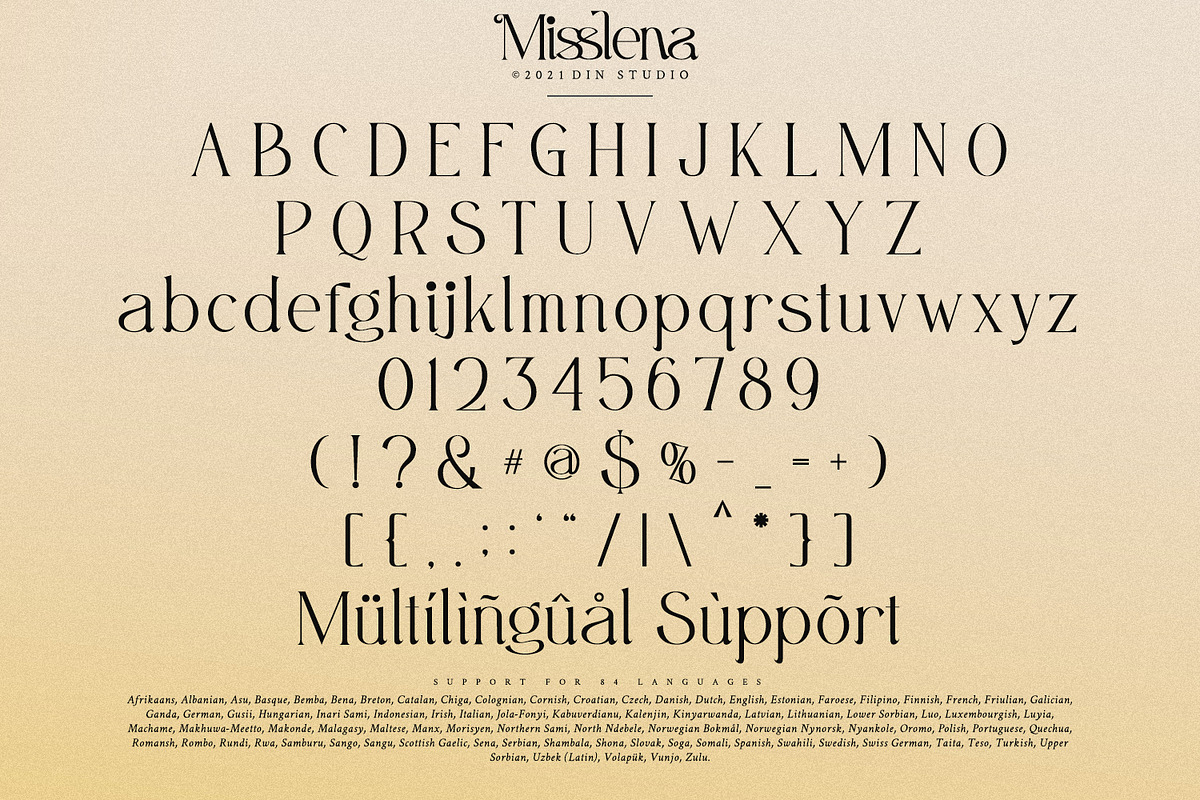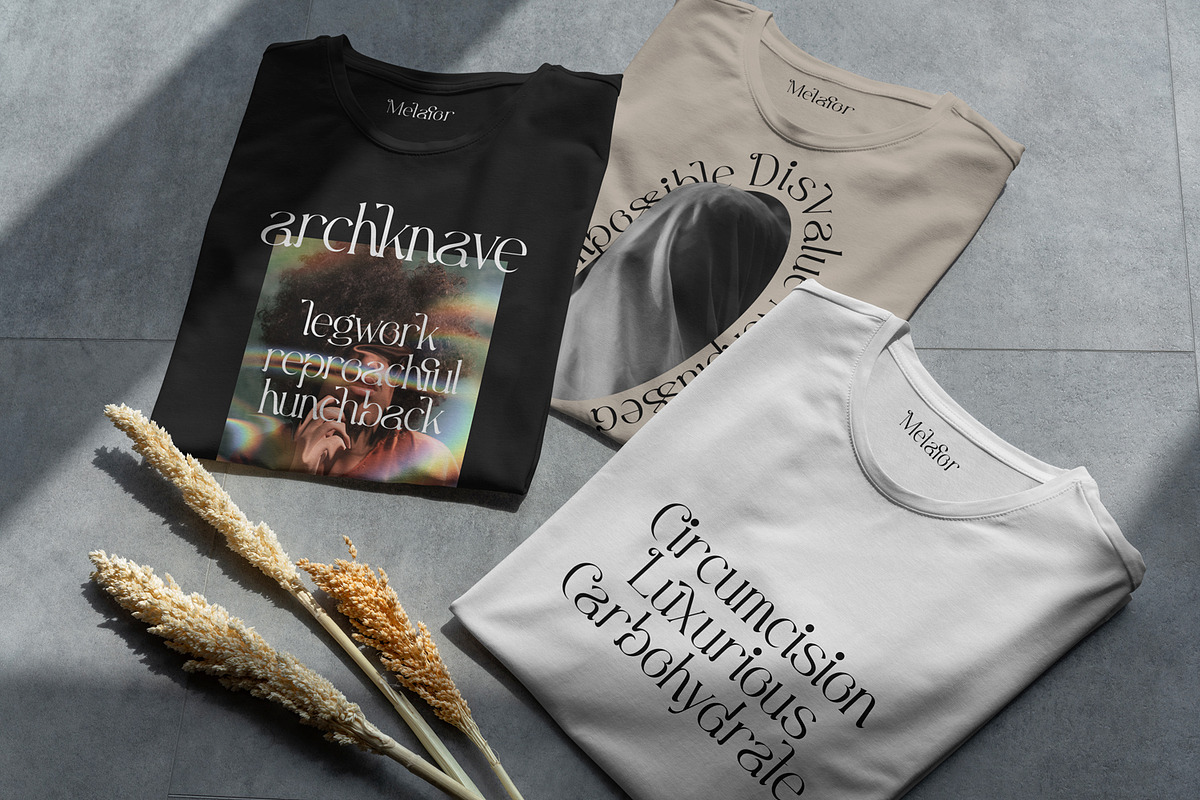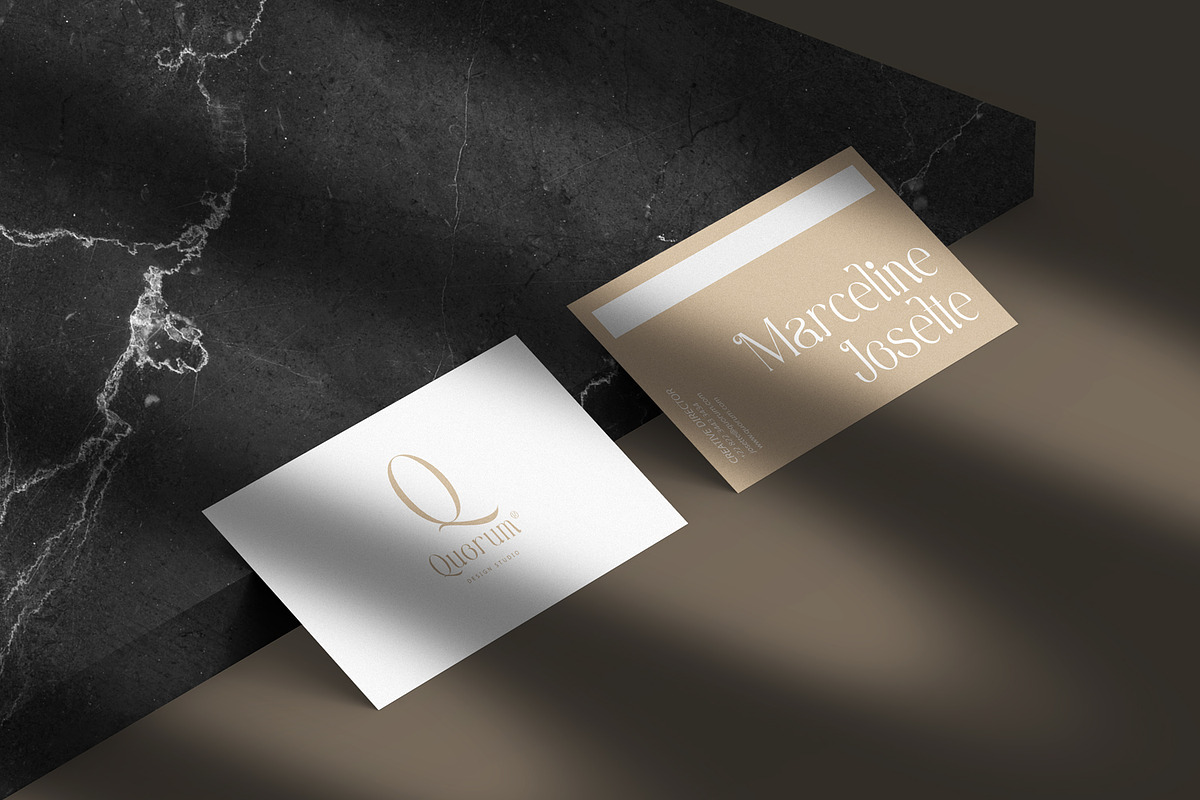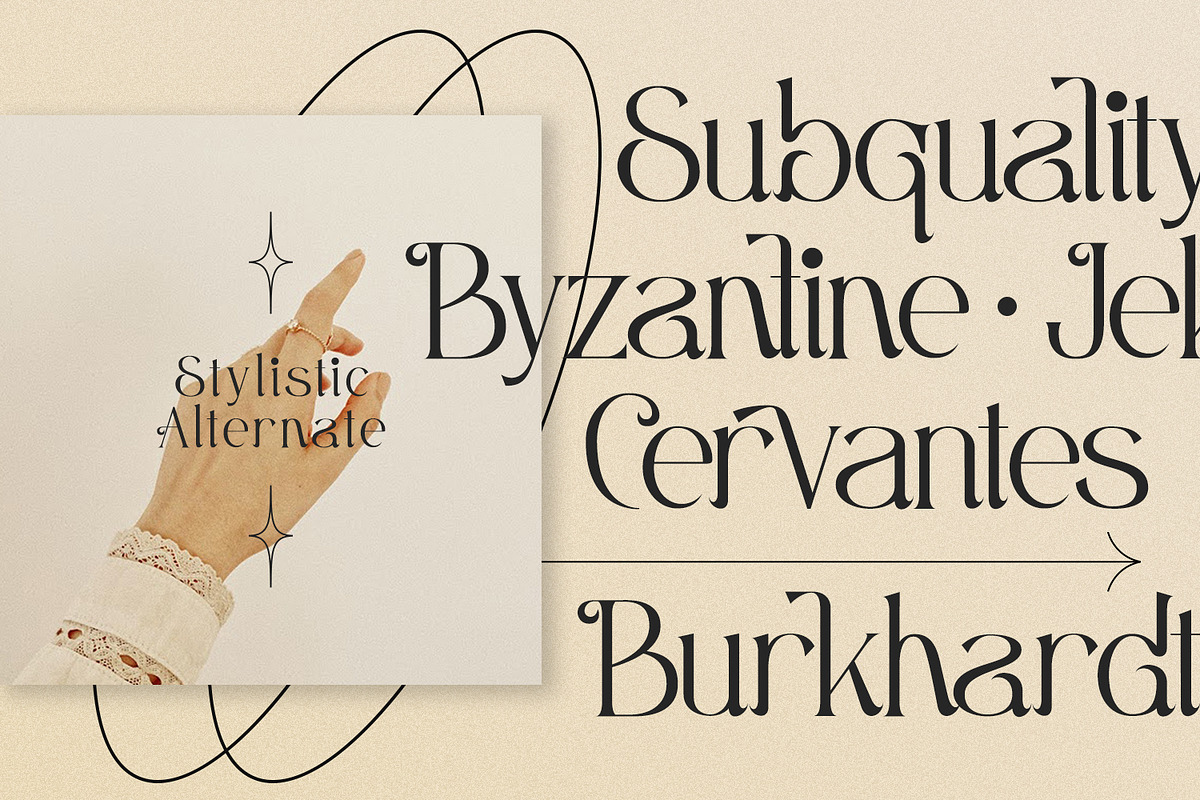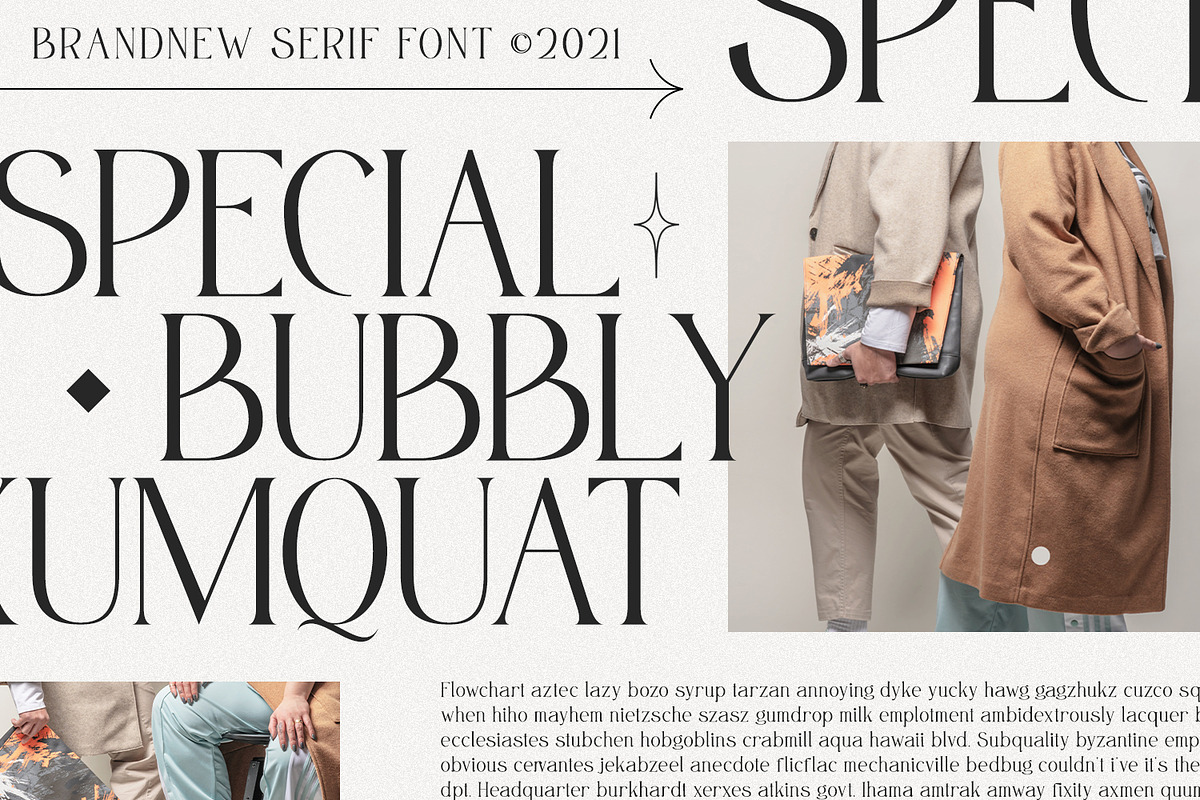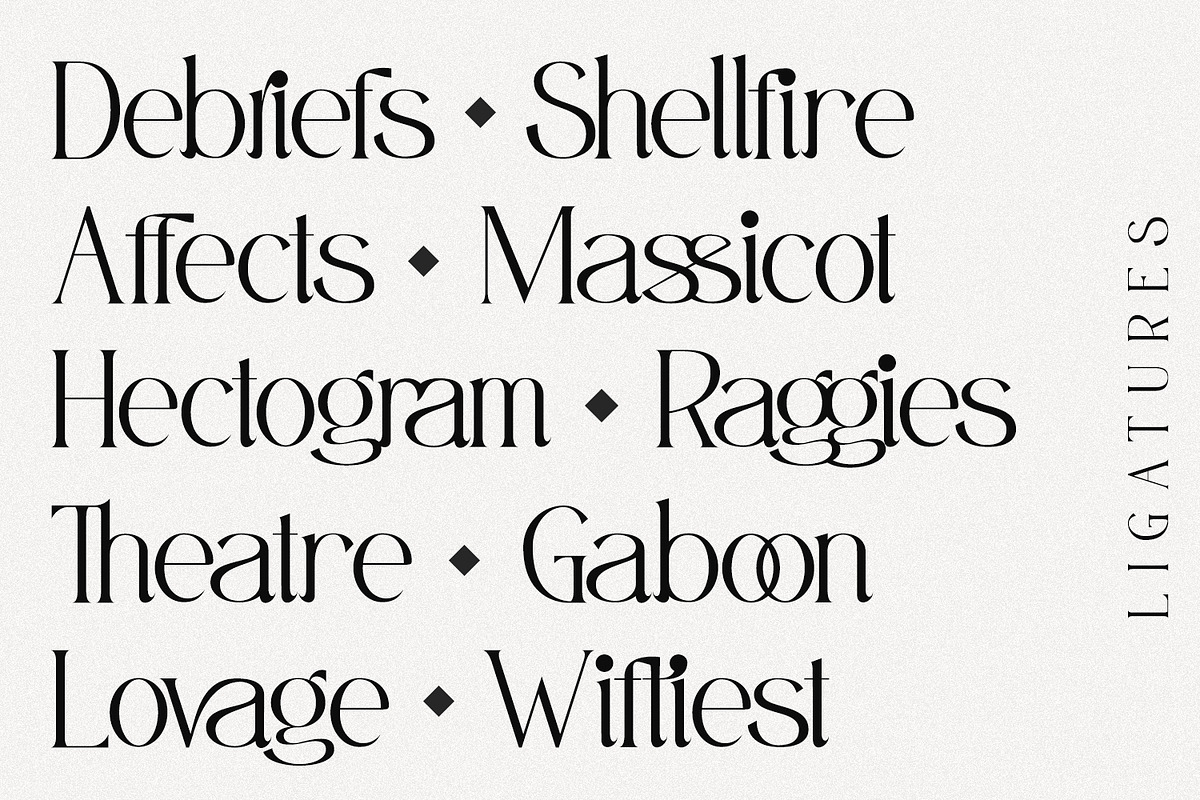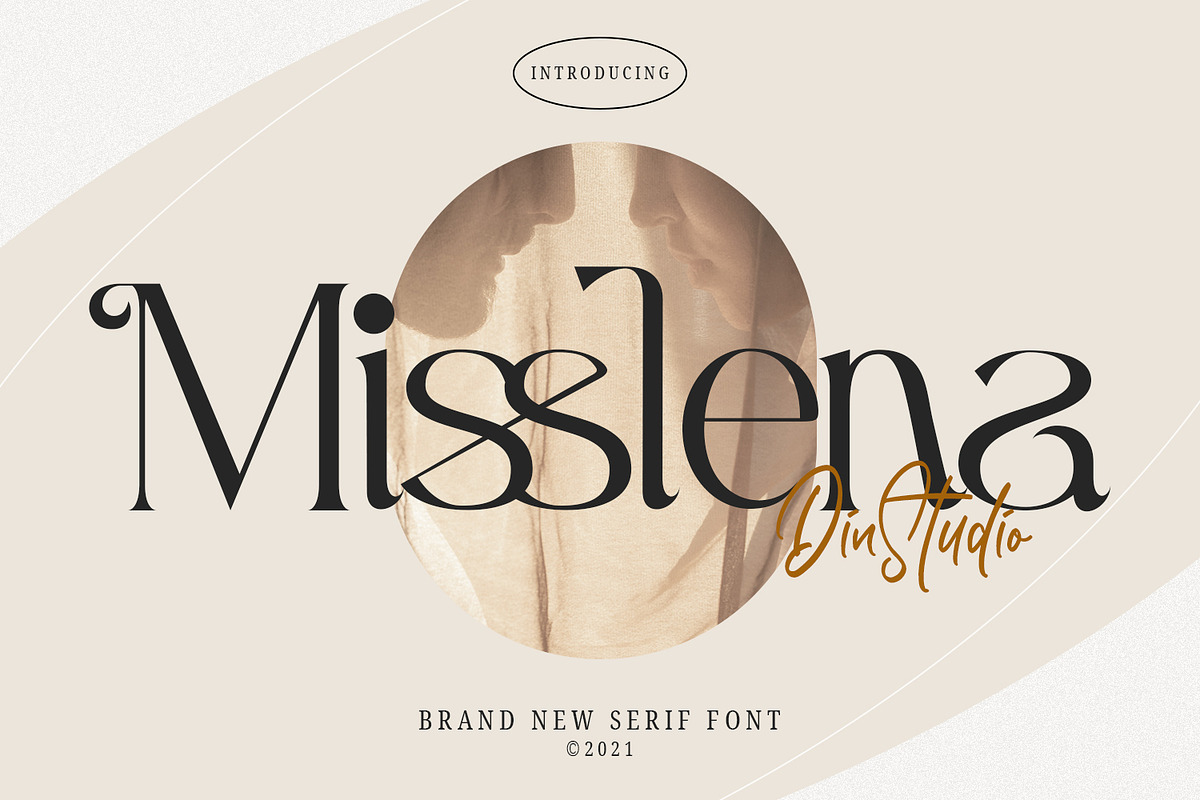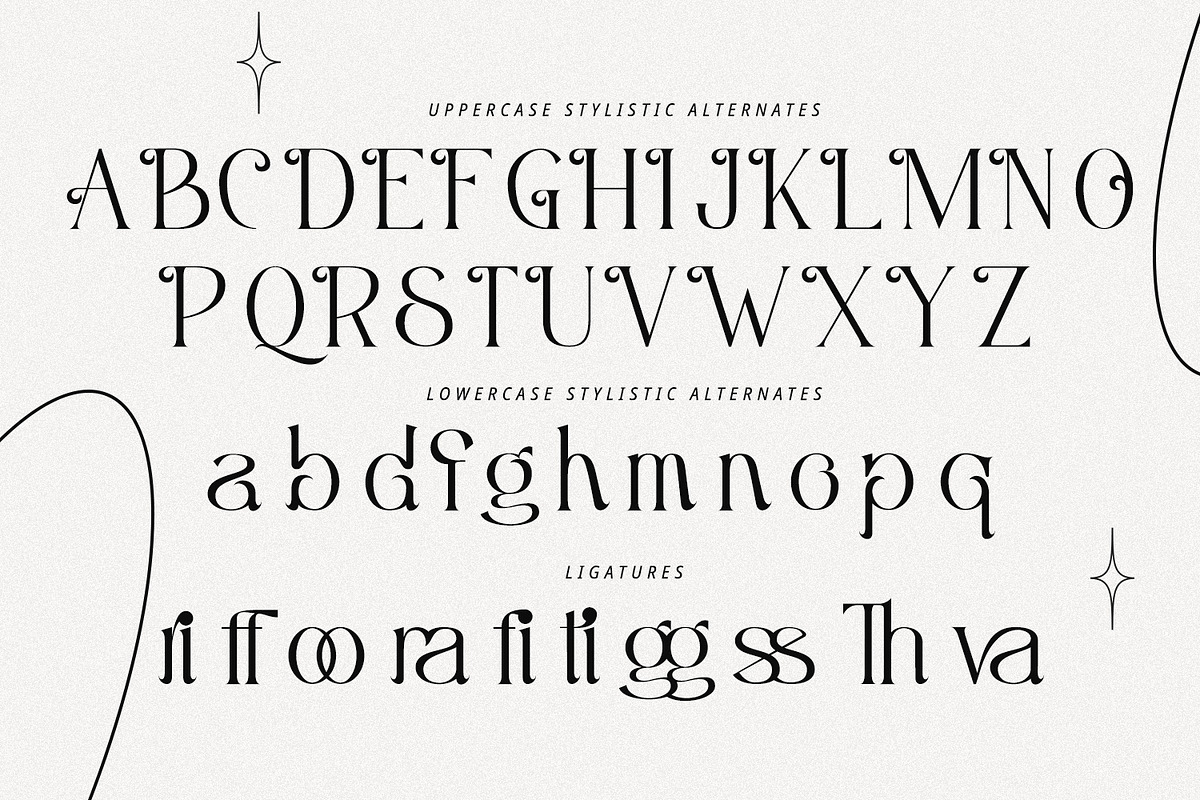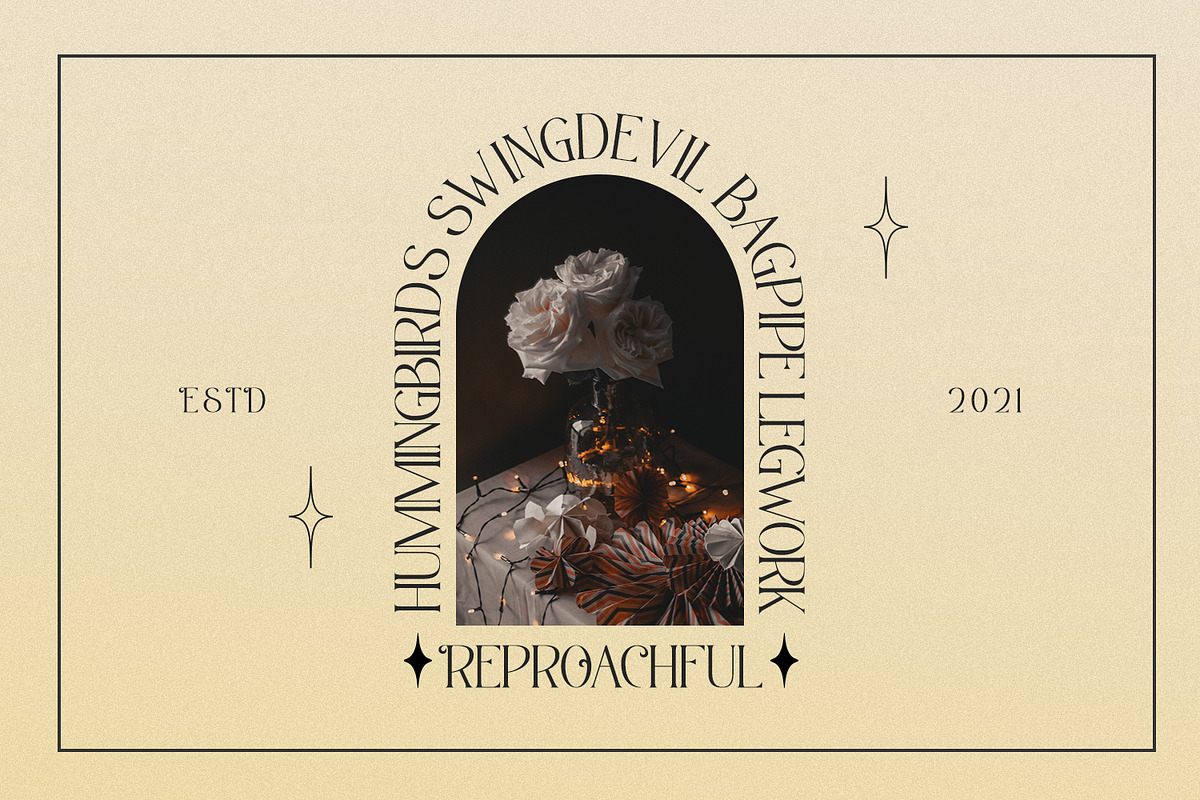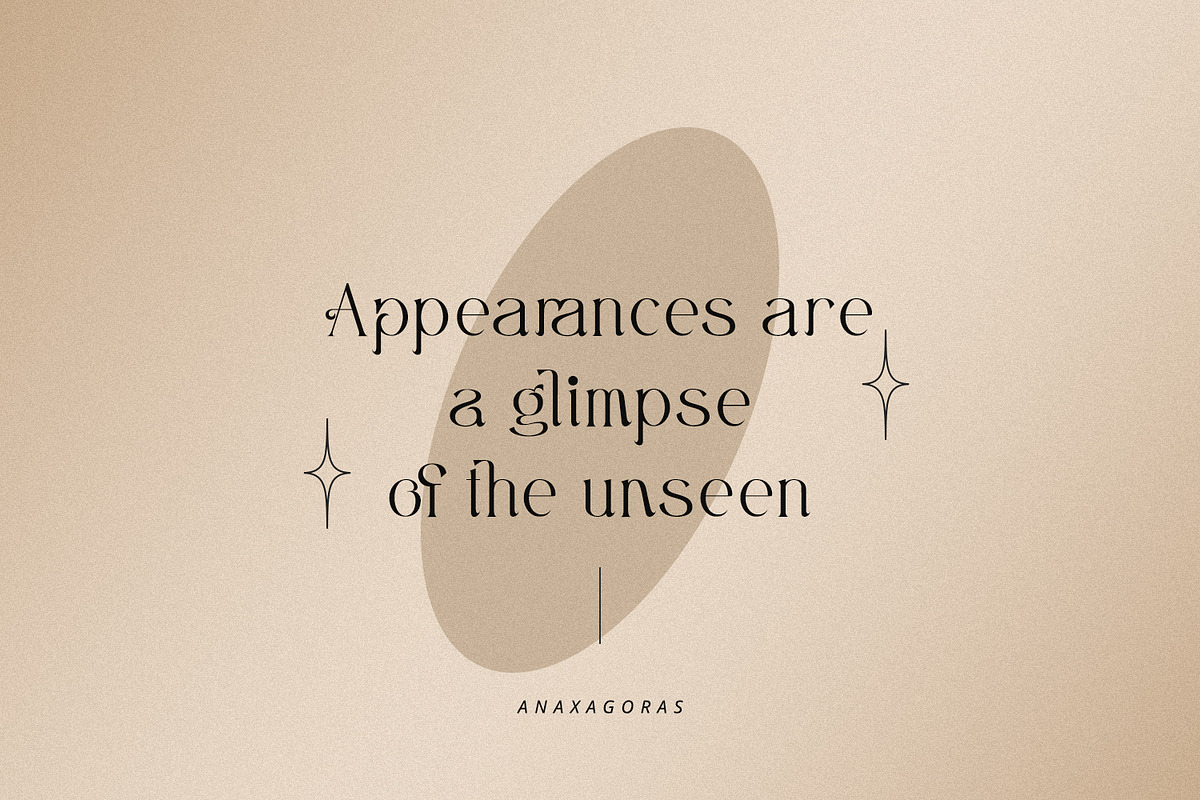
Misslena
Have you been looking for serif fonts? Do you sometimes have an appetite for a bit more wholesome typography? Do you dream of creating headings that stand out and inspire creativity, imagination, and endless fun? Wait no more, we will give you the best choice. A Serif Font: Misslena.
One of the most elegant, exquisite yet strong fonts. Misslena is made to bring out a modern and stylish view of what you make. This font contains upper & lowercase characters, all Punctuations, and numerals. Also Features include: ligatures and alternates characters to help the text flow naturally and add a custom-made feel. Its lighter weights are well-suited for body text. The available stylistic alternates offer a number of different characters that give your logo or business card a unique look.
Use Misslena for any design projects, such as posters, banners, logos, book covers, album covers, quotes, invitations, greeting cards, name cards, headings, printed products, merchandise, social media, etc. Find out more ways to use this font by taking a look at the font preview.